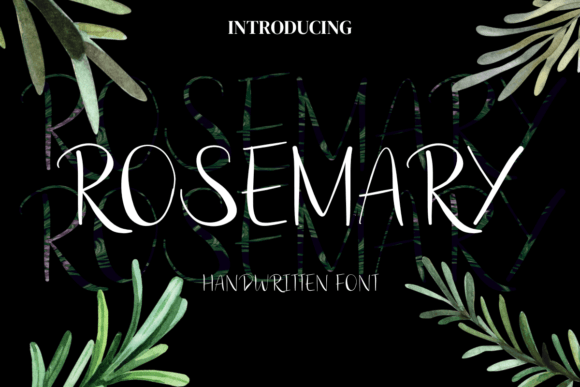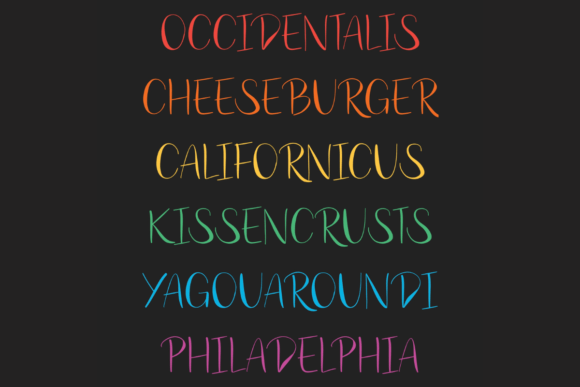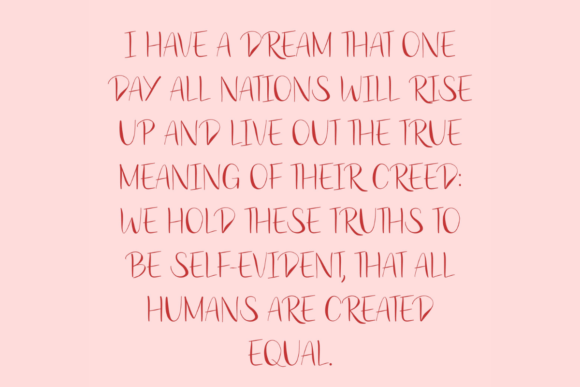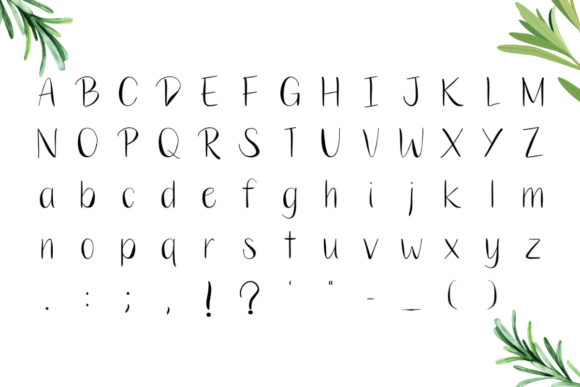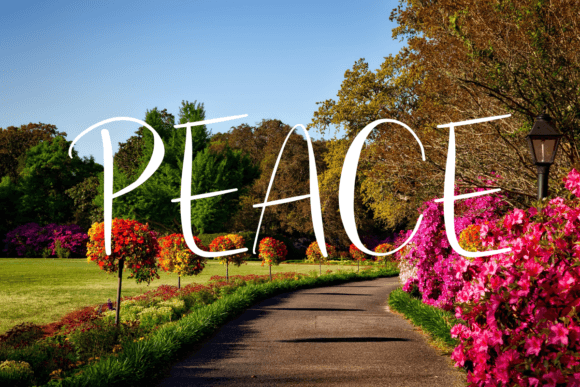
Rosemary Font
About Rosemary Font
“Rosemary” is a charming, elegant, and unique handwritten font that adds a touch of sophistication to your projects. Its distinctive style brings a sense of individuality and grace, making it a confident choice for a variety of creative endeavors.
The charm of “Rosemary” lies in its handwritten quality, which gives your designs a personal and authentic touch. Whether used for branding, invitations, stationery, or any other project, this font’s elegance enhances the overall aesthetic.
The unique features of “Rosemary” make it stand out, contributing to a memorable and refined visual experience. Its versatility allows it to adapt seamlessly to different design contexts, ensuring that it brings a consistent level of charm and uniqueness to your projects.
Adding “Rosemary” to your designs is a confident decision, as it promises to deliver results that are both visually appealing and distinctive. Whether used for headlines, logos, or any other typographic element, this font adds a touch of sophistication that elevates the overall impression of your work.
In summary, “Rosemary” is not just a font; it’s a design asset that exudes charm and elegance. Confidence in incorporating it into your projects is well-placed, as “Rosemary” is crafted to enhance your designs with a unique and refined handwritten style.